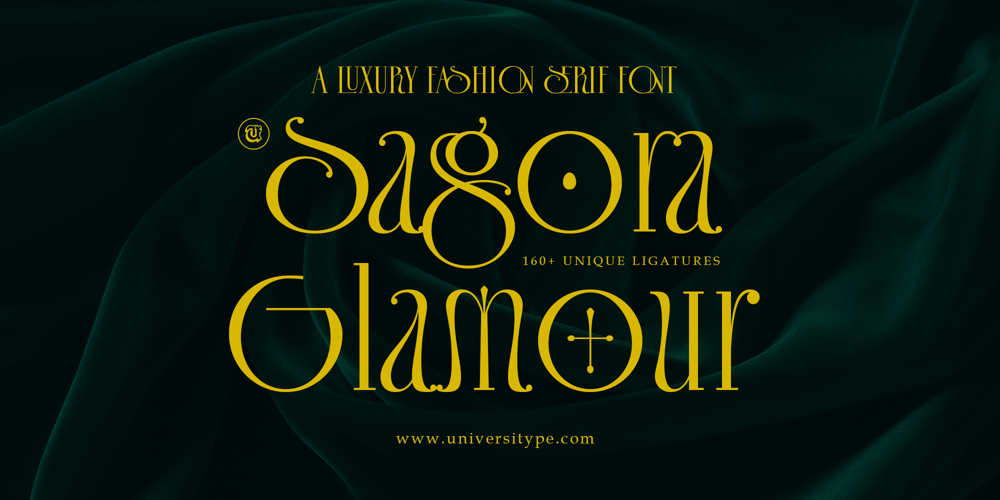
UT Sagora Glamour Font Family was designed by Muh. Aswar, Novan Arisandi, Andi Syahdang and published by Universitype. UT Sagora Glamour contains 1 styles and family package options. Introducing Sagora Glamour: Where Elegance Meets SophisticationUT Sagora Glamour is a condensed serif typeface crafted to embody luxury, refinement, and timeless beauty—a condensed serif that transforms typography into an artful statement. Designed with the discerning in mind, it speaks to high-end fashionistas elevating their branding, luxury lifestyle curators adding sophistication to publications and events, creative visionaries infusing opulence into editorial and advertising, and designers striving for perfection in every project. Its bold elegance seamlessly marries versatility with exclusivity, making it the go-to choice for those who demand nothing less than extraordinary in their design narratives.Designed for the EliteSagora Glamour is crafted for: High-end Fashionistas: Enhance brand, packaging, and marketing sophistication. Luxury Lifestyle Connoisseurs: Add glamour to publications, influencer content, and events. Creative Visionaries: Perfect for branding, editorials, and opulent advertising. Designers Seeking Perfection: Combine boldness with elegance effortlessly. The Sagora Glamour Experience Versatile Elegance: Ideal for logos, editorials, and standout headlines. Nature Meets Precision: Inspired by peacock feathers and the golden ratio for harmony and refinement. Creative Tools: Features alternate characters, 150+ ligatures, and stylistic flourishes for bespoke typography. Compact Sophistication: Maintains readability and poise in tight spaces. Striking Contrast: Bold yet delicate strokes captivate the eye. Signature Flourishes: Unique motifs and swashes make every project distinctive. Majesty at Any Size: Perfect for both small text and large-scale designs. Timeless Across Mediums: Effortlessly chic for luxury branding, digital, and print. The Story Behind Sagora GlamourRooted in Art Deco glamour and Art Nouveau fluidity, Sagora Glamour draws inspiration from: Peacock Feathers: Curves echo the organic flow of plumage, blending nature with structure. Golden Ratio: Precise proportions create visual harmony. Fashion Models: Poised, confident lines reflect runway elegance. This blend of luxury and approachability ensures designs captivate and communicate sophistication.ApplicationsSagora Glamour elevates: Fashion Branding: Logos, packaging, and marketing materials. Editorial Design: Headlines, covers, and layouts. Event Invitations: Exclusive and breathtaking designs. Web Design: Adds elegance to luxury boutiques, blogs, and digital platforms.